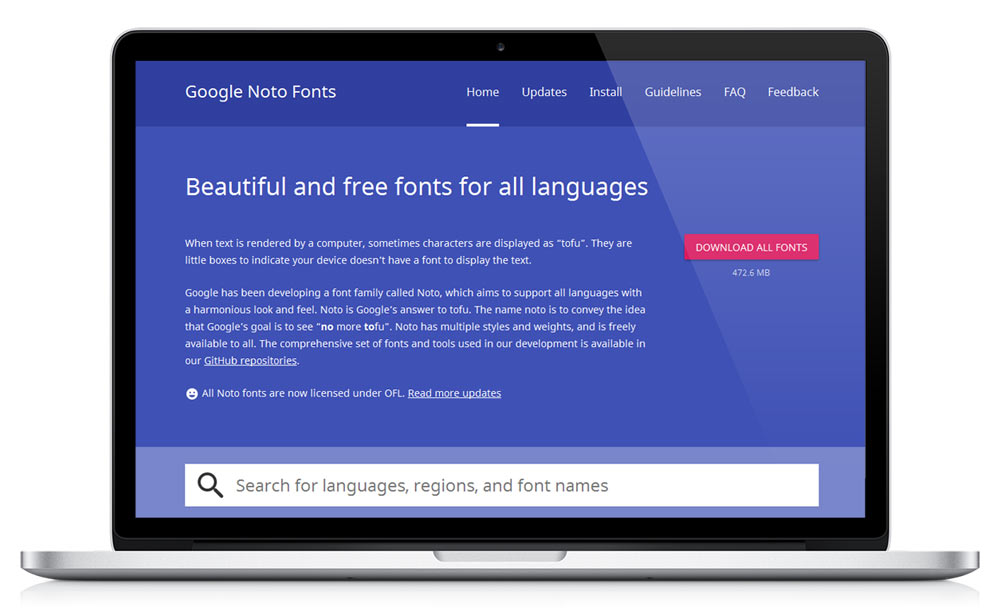
While most things inside our digitized world is made from programming languages that work behind the scene, the surface that most people see where things are populated is created by our own languages.
In its effort to make things easier for people, Google has created Noto, a massive open-source font family.
Noto covers every symbol standard in the Unicode. And by spanning to have more than 800 languages and 110,000 characters, to cover every aspect, it's having all Unicode's standard symbol in its inventory.
The name Noto comes from the phrase "No more tofu", which refers to blank characters (⯐ or "tofu"), which are displayed when the necessary symbol from a certain language isn’t available on the user's system. According to Google, this "tofu" can create confusion, a breakdown in communication, and a poor user experience.
The initial aim for the project was to make Android and ChromeOS more accessible.
By having Noto available, Noto's elegant and unified look across languages can be used for free by developers and practically everyone else.
So to finish the project, the company took five years to complete it by seeing the involvement of typography and font design experts from Monotype and Adobe, as well as a network of volunteers.
And because Noto is essentially a place that covers any type of displayable text characters, as Google describes it: it's a way to "preserve the history and culture of rare languages through digitization."